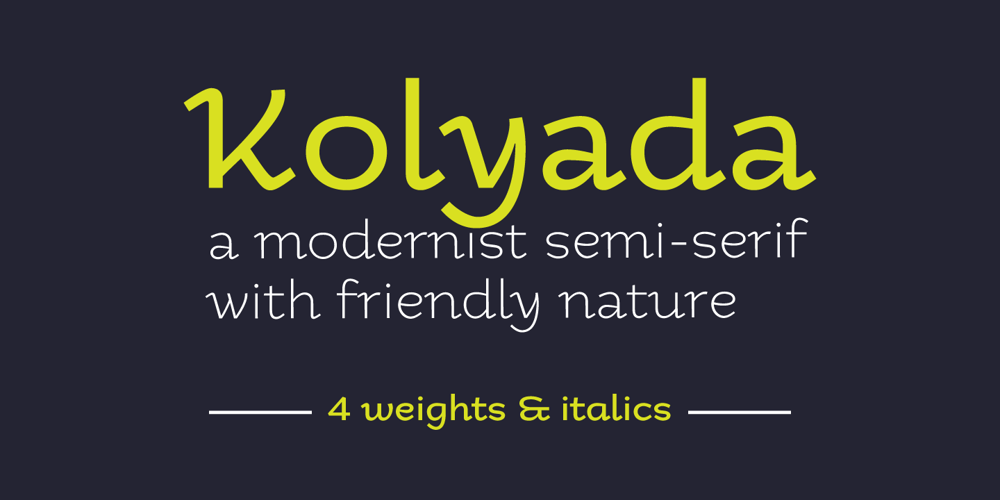
Kolyada
Kolyada font
Kolyada Font Family was designed by Cyrill Tkachev and published by Tkachev. Kolyada contains 8 styles and family package options. Kolyada is a modernist semi-serif with a friendly nature. This type is well-suited for use in retail, magazines, logotypes, books, etc. It comes with 4 styles, from Ultra Light to Medium, each with its Upright Italics.